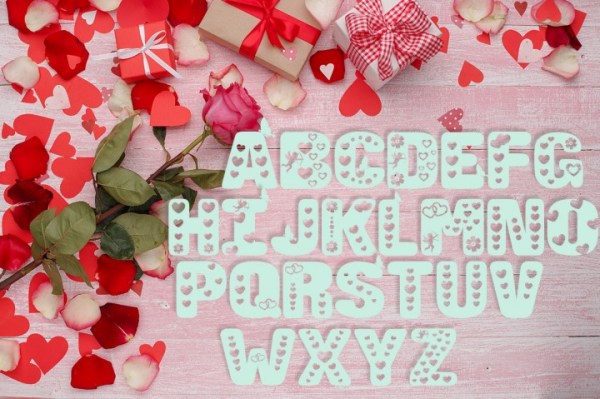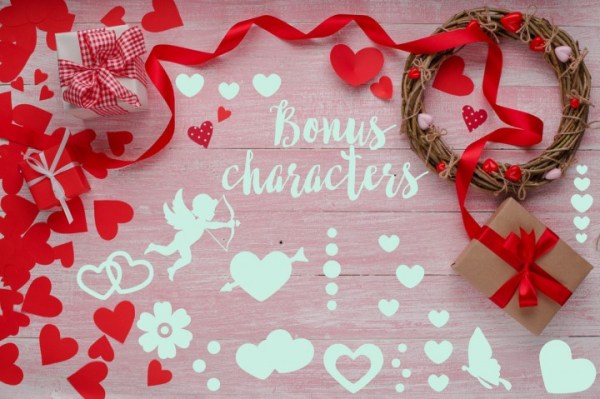
$1 Font: Crazy Love (Valentine Edition)
The font comes with uppercase A-Z letters, 0-9 numbers and limited punctuation including a Crazy Love Extras Bonus and is free for commercial use.